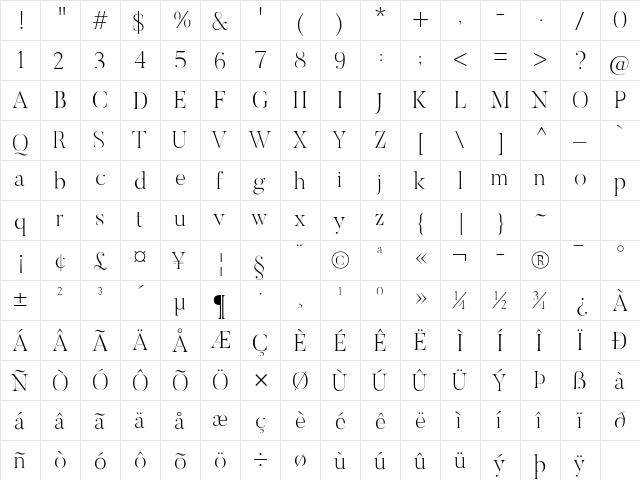
Butler UltraLight
| Designer | Fabian De Smet |
Design Context for Butler Typeface
Butler is a composed and adaptable typeface that performs quietly and consistently across a wide range of design contexts. Its slender proportions lend an understated elegance to any composition.